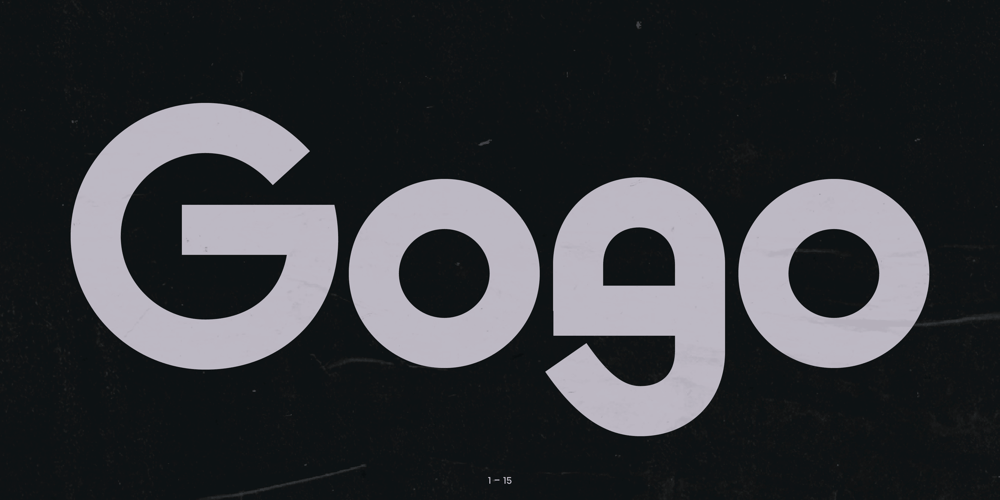
ND Gogo Font Family was designed by Wolf Boese and published by NeueDeutsche. ND Gogo contains 8 styles and family package options. ND Gogo is a bold and playful sans serif font that combines the clean lines of modernist typography with the raw energy of brutalism. With its monolinear stroke and lack of ornamentation, this font is all about simple geometric shapes and bold visual impact. But don’t be fooled by its simplicity – ND Gogo also has a quirky side that comes through in its idiosyncratic letterforms and playful details.